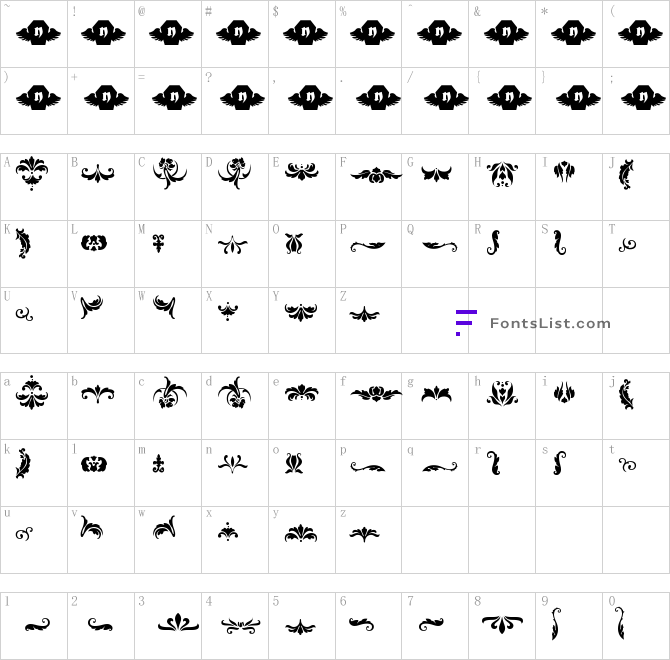
- Font Name:Damask Dings1
Damask-Dings1.ttf is a very beautiful artistic font, Damask-Dings1.ttf is widely used in the design and printing of various books and pictures,Damask-Dings1.ttf has a strong visual impact,Damask-Dings1.ttf is a commonly used font in newspapers, magazines and books, and is used in posters, e-commerce Poster design, store design, logo design, font design and other fields.Damask-Dings1.